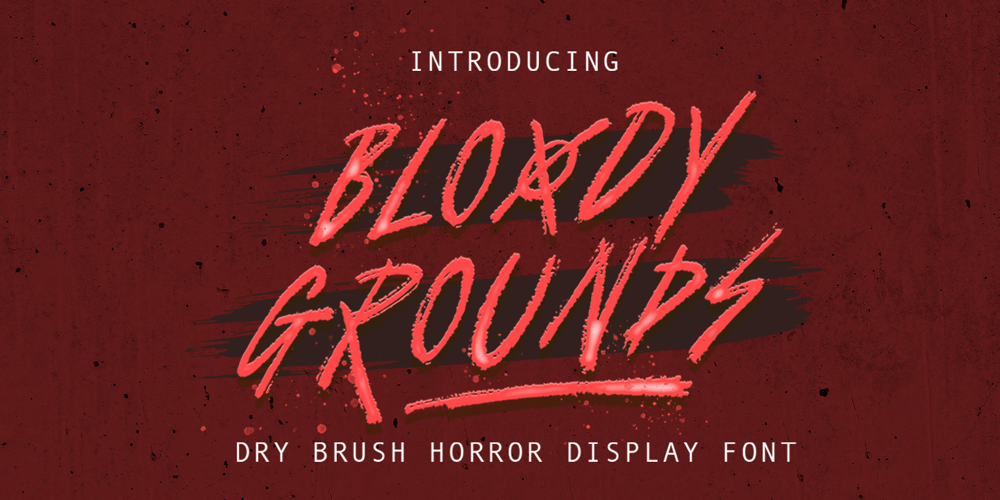
Bloody Grounds
Bloody Grounds font
Bloody Grounds Font Family was designed by Hendry Juanda and published by Letterhend. Bloody Grounds contains 1 styles and family package options. Bloody Grounds is a textured dry brush font, It’s organic and hand-drawn appearance adds a touch authenticity to your designs, making it a perfect choice for projects that seek to stand out with freestyle display typeface.This font perfectly made to be applied especially in logo, and the other various formal forms such as invitations, labels, logos, magazines, books, greeting / wedding cards, packaging, fashion, make up, stationery, novels, labels or any type of advertising purpose.Features : Uppercase & lowercase Numbers and punctuation Alternates & Ligatures Multilingual PUA encoded